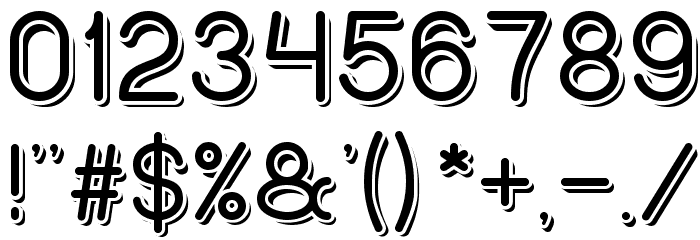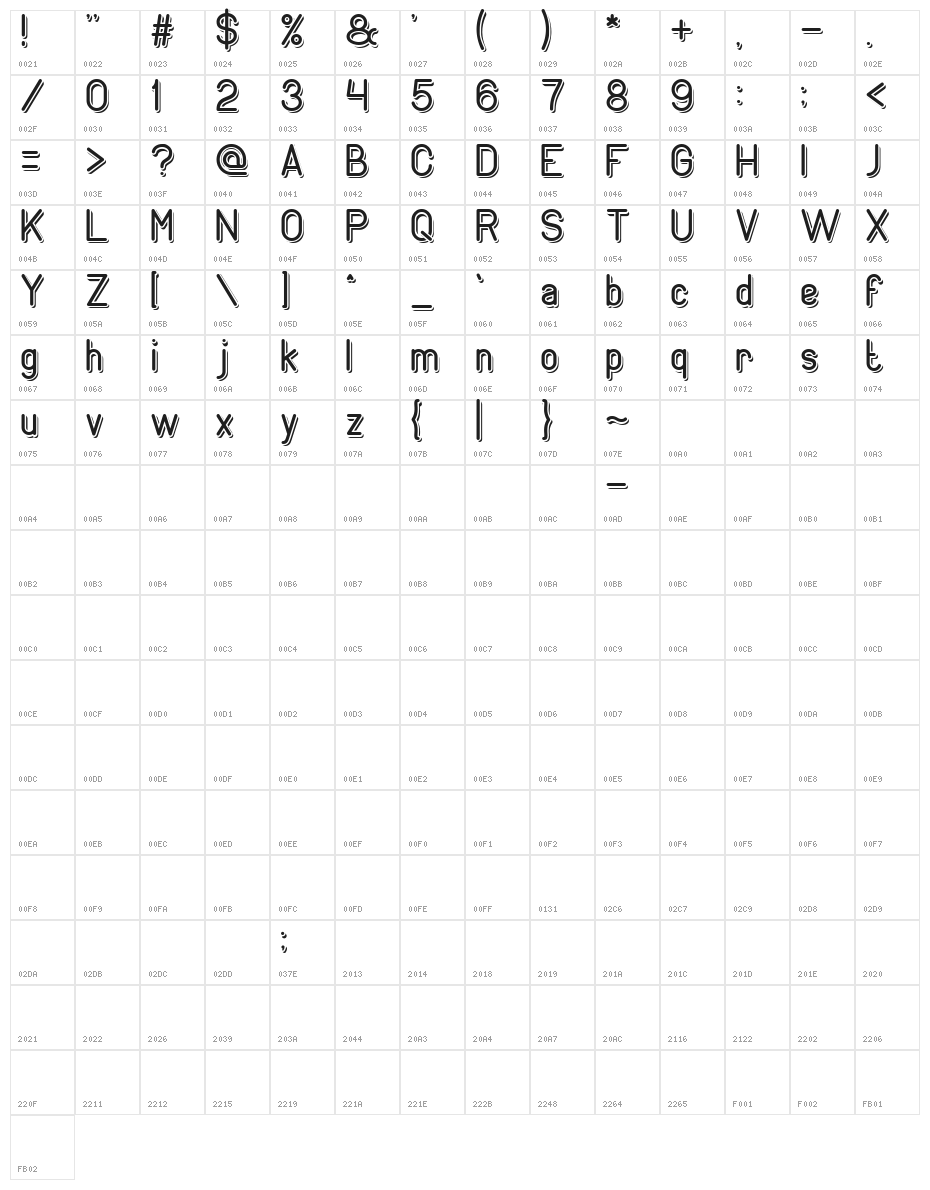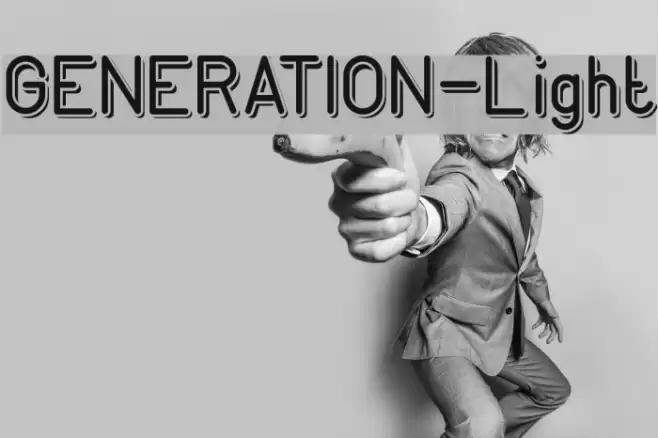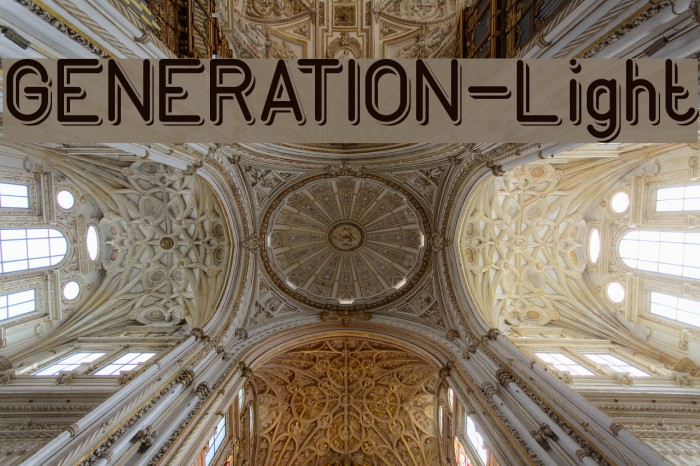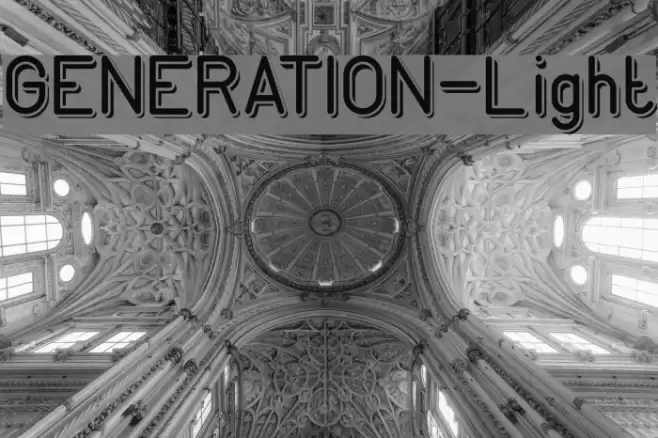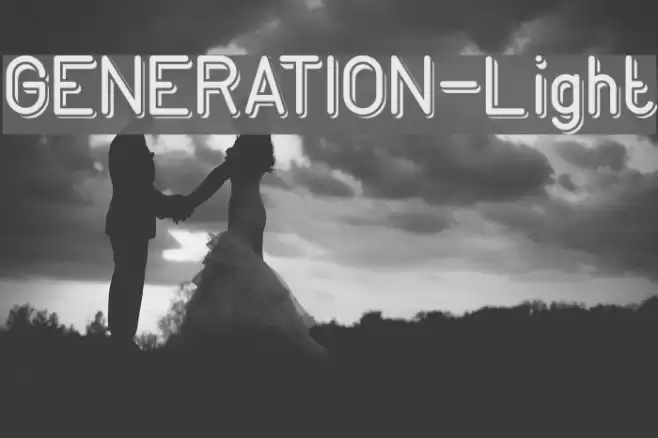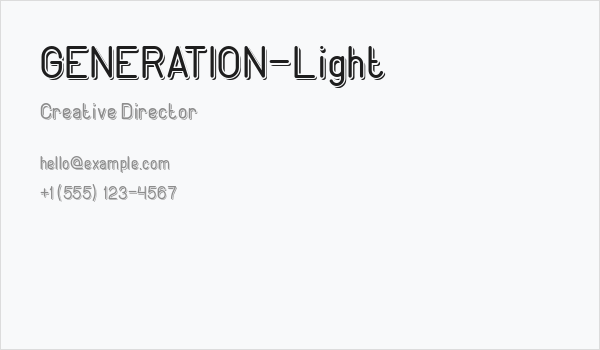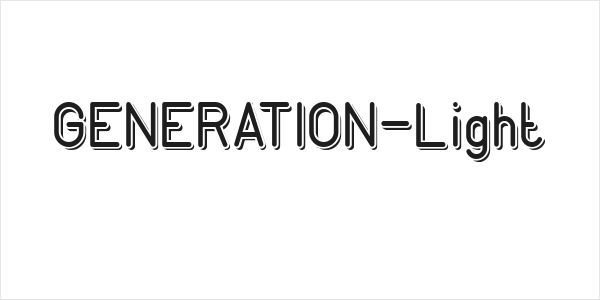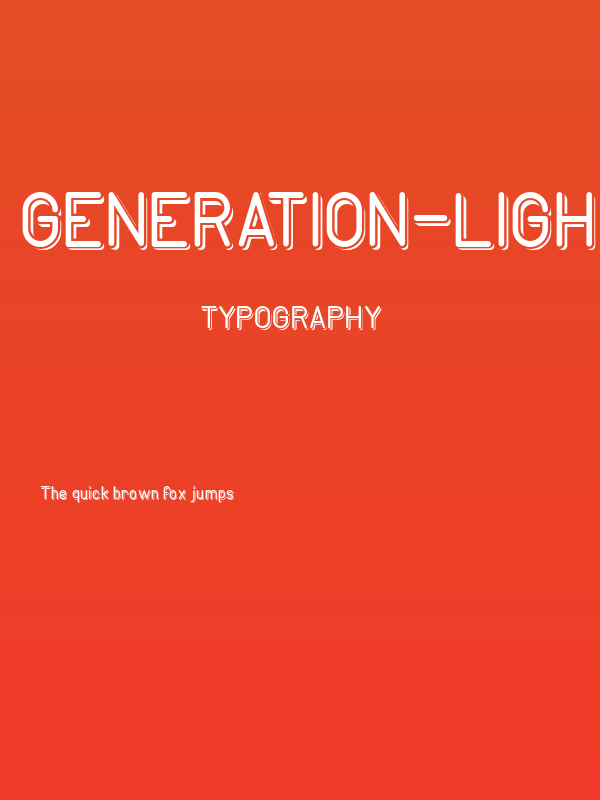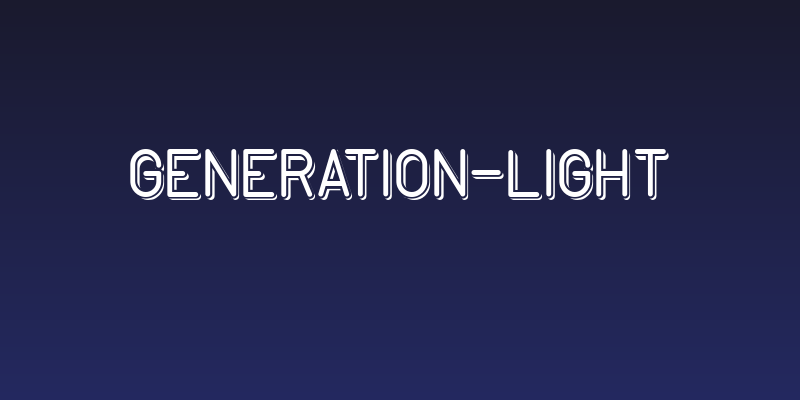
GENERATION-Light Font
GENERATION-Light Description
This font features a modern, geometric design with a hollow, outlined style that gives it a unique and eye-catching appearance. The uppercase and lowercase letters are consistent in their structure, maintaining a clean and uniform look. The numbers and special characters follow the same design principles, ensuring a cohesive appearance across all glyphs. The font's open and airy design makes it suitable for projects that require a contemporary and stylish touch. Its distinct outline style adds a layer of depth and dimension, making it stand out in various applications.
| Proposed Projects | Ideal for branding, posters, headlines, and digital media where a modern and stylish look is desired. |